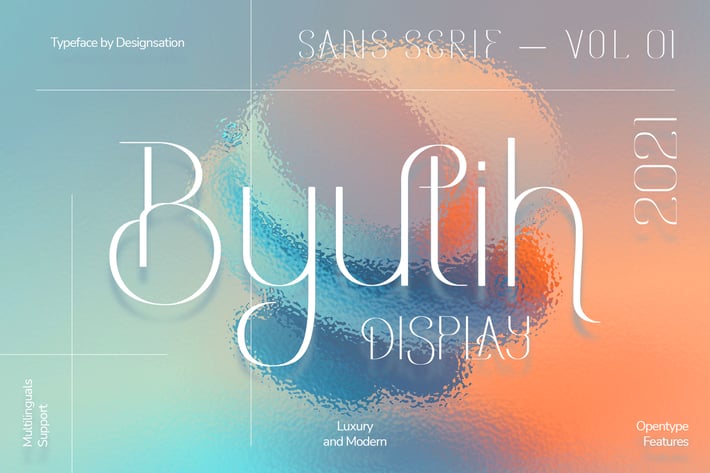
Byutih Sans Typeface
Byutih
Tiny Modern Display Sans typeface, inspired by Woman Empower. Fit for any Headline needs, especially fashion, Movie Title, Yoga Company, and any other social media display needs, also used for printed design, web font, branding, and logo type.\
The shape reflecting a masculinity, wildness, also brave look for your designs.
Some Open Type features included, like alternates or stylistic Set & Ligatures make your design looks authentic as one simply changes from basic character then switch it to activate the feature.